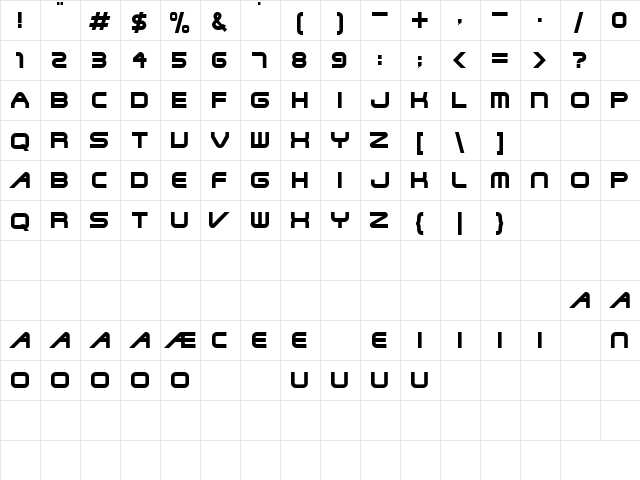
bitter pill Regular
Design Context for bitter pill Typeface
bitter pill takes a measured approach to typography — its balanced proportions and neutral character make it a reliable workhorse for both digital and print work.